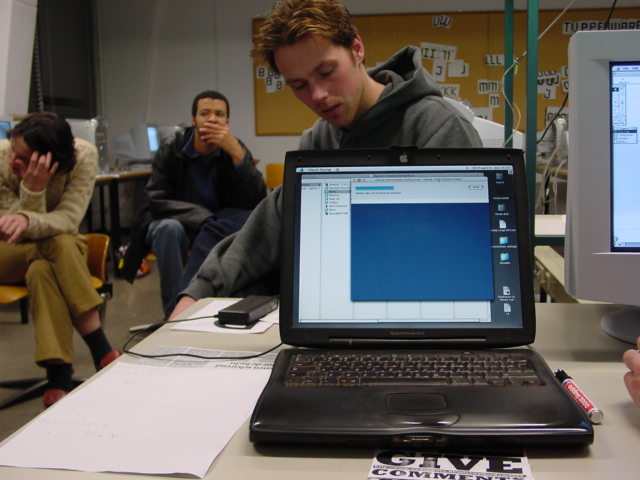
![]() ![]() The 4 day-workshop takes place at the Willem de Kooning academy in Rotterdam. The goal of the workshop is to make a new typeface for a signage system near Rotterdam Blaak train station. The typeface and the signage system will be developed by the whole group in three and a half days. The group of students consist of 12 students from the graphic design department. 1) define the feeling and the look of the type by drawing the word 'SNAKE' 2) choose one and develop this into a whole font 3) digitalize the font 4) present it in the right environment ![]()
![]() The third day the designs of all the characters were finished. The most important issue was that all the characters belong to the same family. Almost directly the digitalization of the type could be started. Every student digitalized a few characters, which were then putted together in one font. After this the design had to be adapted even more to make all the characters fit into one font. Also the idea for the sign system was developed this day. And the font got his own identity, a real name! ![]() ![]()